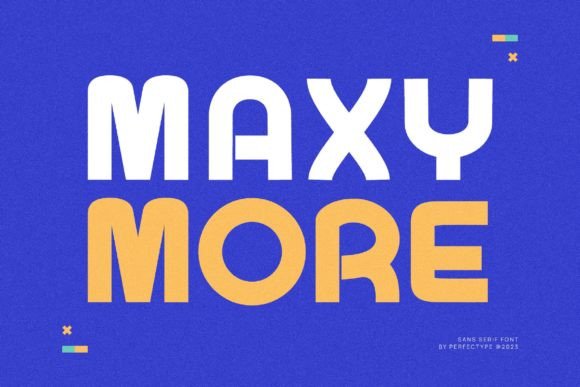
Step into the realm of sophistication and style with Maxy More Font, the epitome of elegance and minimalism. This sans serif masterpiece, crafted by the visionaries of Perfectype, is a symphony of balanced rhythm, captivating proportions, and subtle nuances.
Immerse yourself in a world where every glyph dances with grace and harmony, beckoning you to elevate your creative expression to new heights. Maxy More Font's enchanting allure will captivate your audience, leaving them spellbound by your designs.
Unleash your imagination and explore a boundless universe of possibilities with Maxy More Font. Its seamless integration into brochures, videos, advertising branding, logos, magazines, layout designs, posters, post templates, games, and more will ignite your creativity and leave a lasting impression.
Transport your designs to the cutting-edge of fashion with Maxy More Font, the ultimate choice for fashion bloggers. Let your words dance across the screen with an unmatched elegance that reflects your unique style and vision.
Experience the transformative power of Maxy More Font today and embark on a journey of design excellence. Its timeless beauty and versatility will elevate your projects to new levels of sophistication, leaving your audience captivated and inspired.
Join the ranks of discerning designers who trust Maxy More Font to elevate their creations and make a lasting impact. Embrace the allure of this remarkable font and unlock the gateway to a world of endless possibilities.